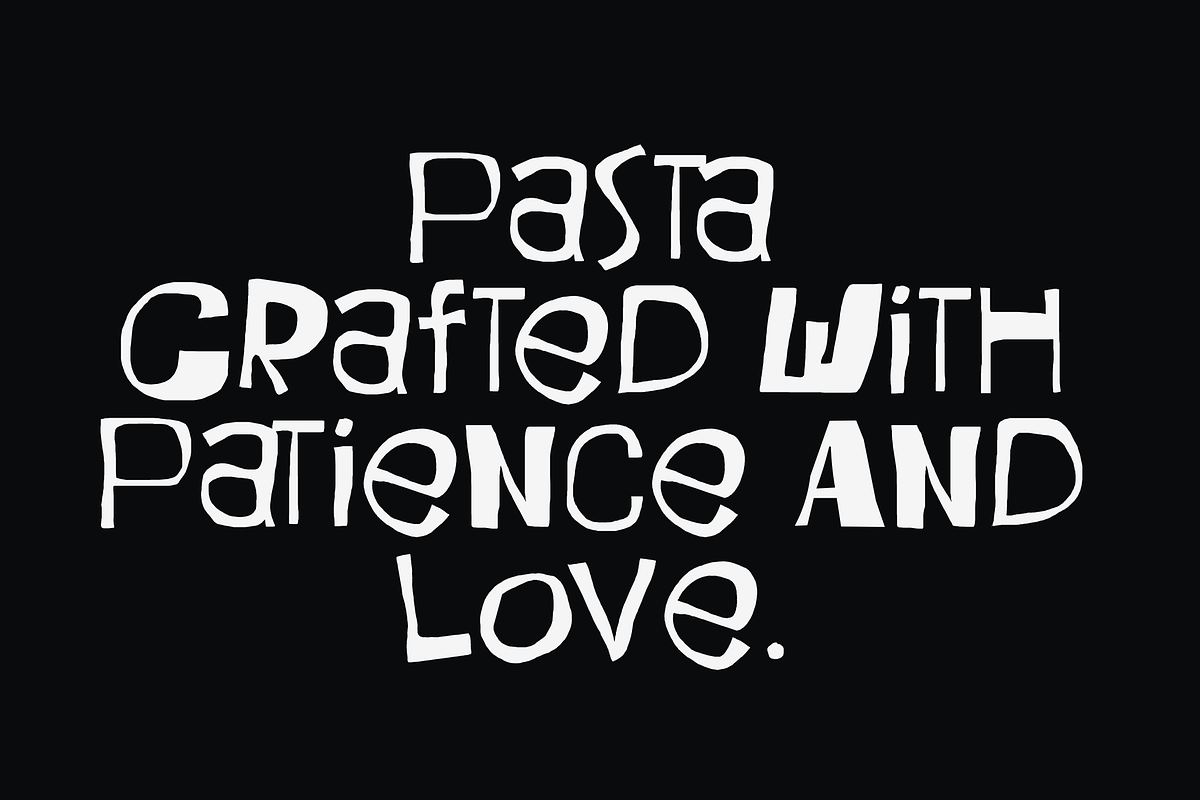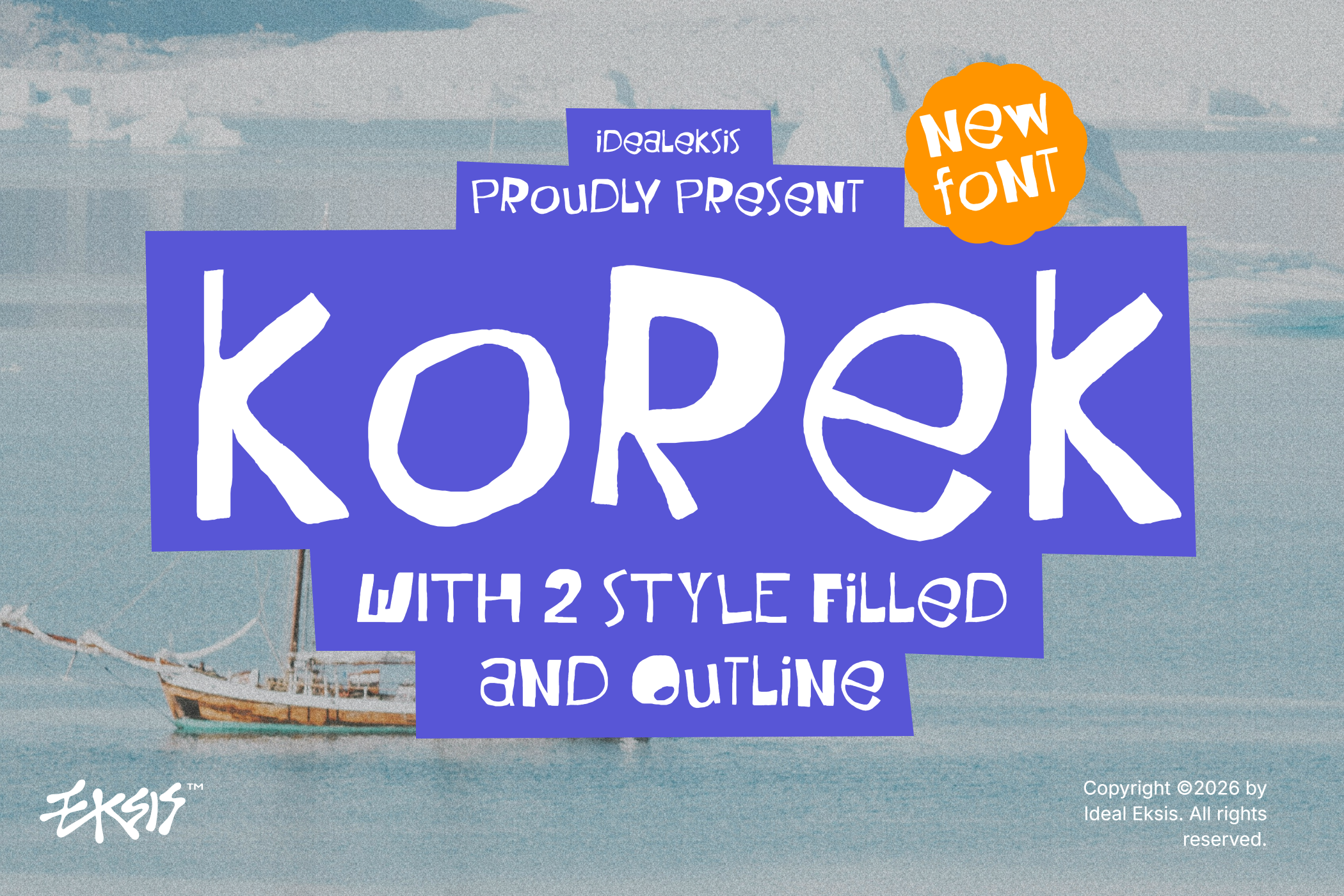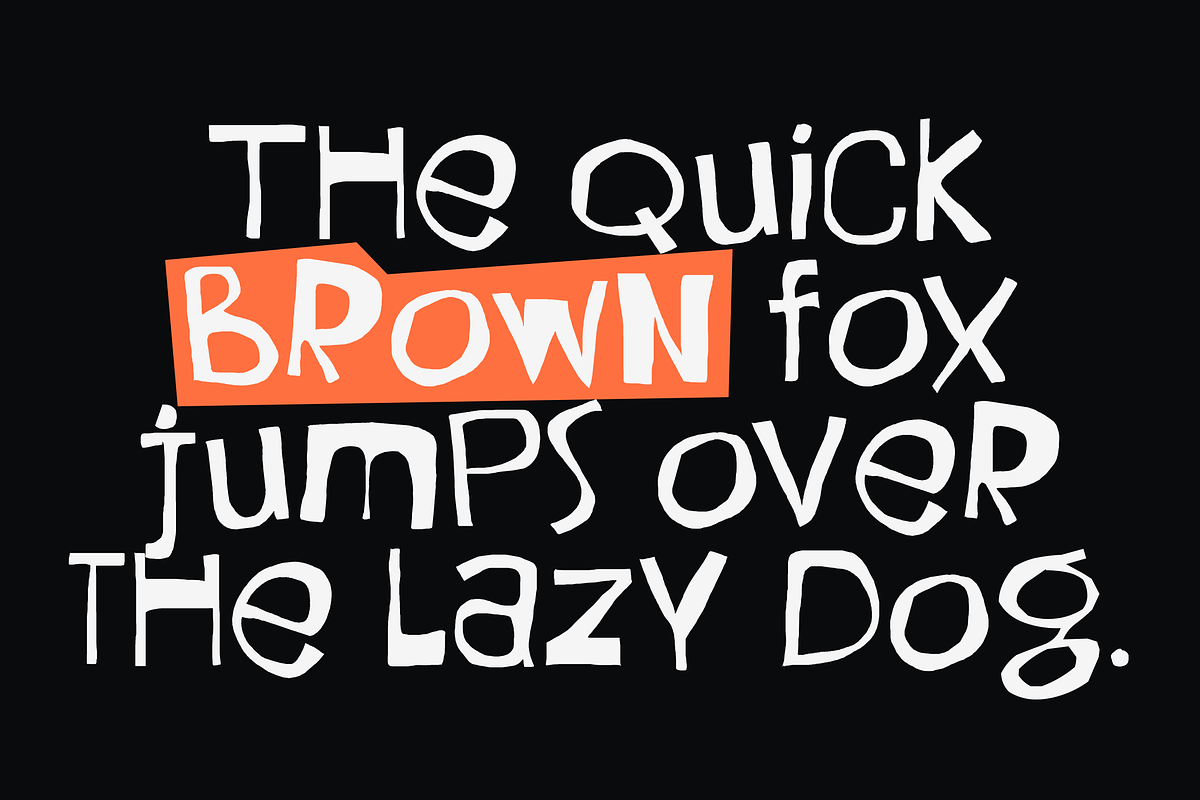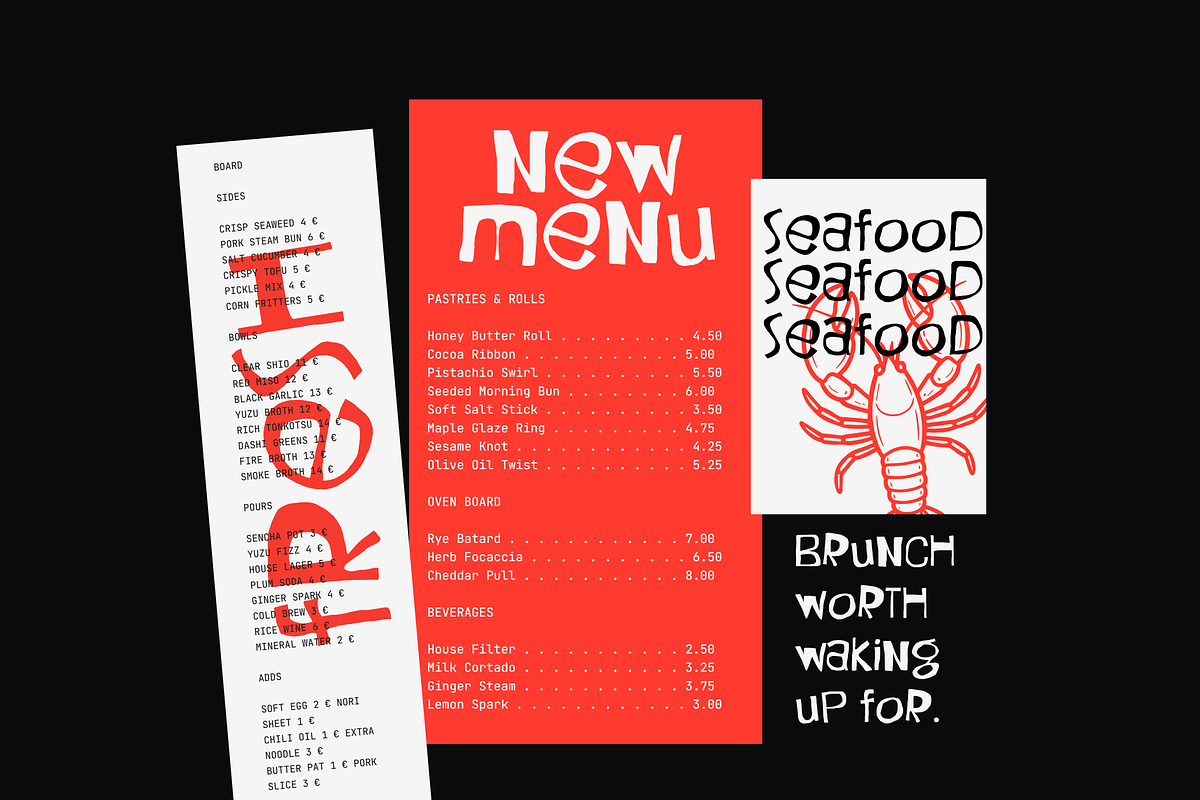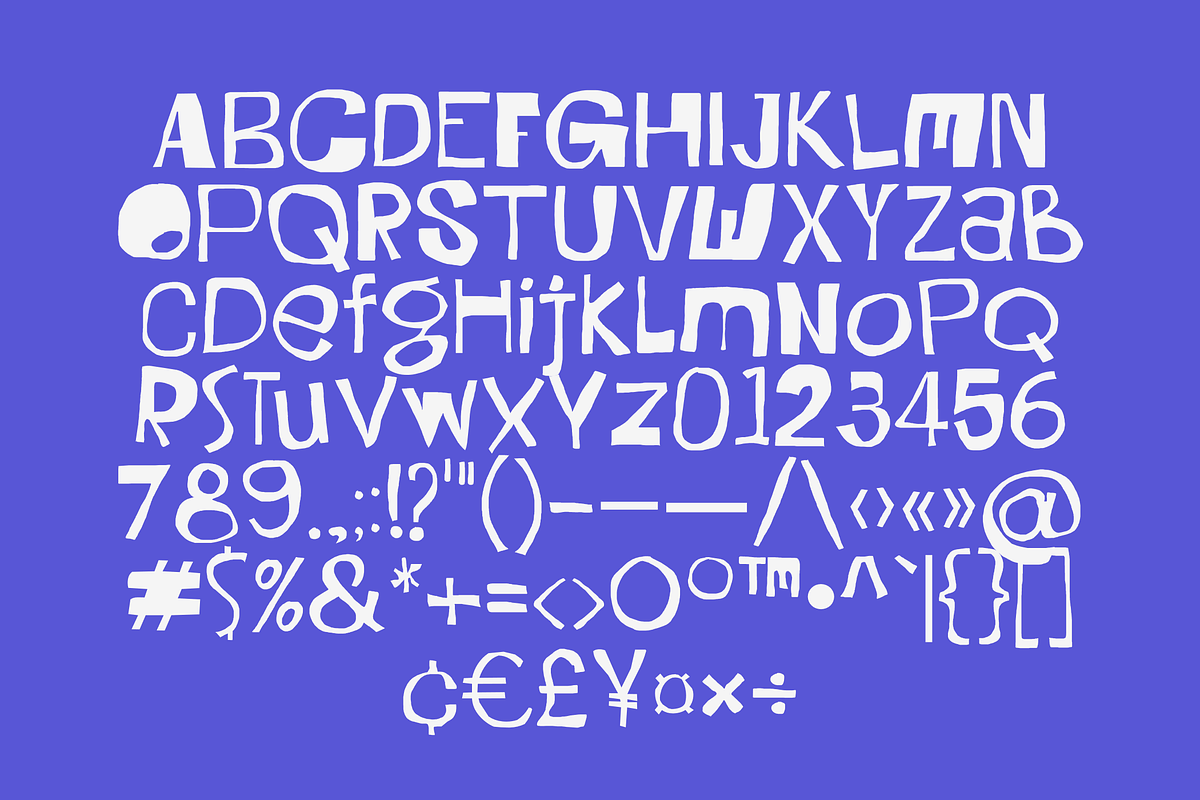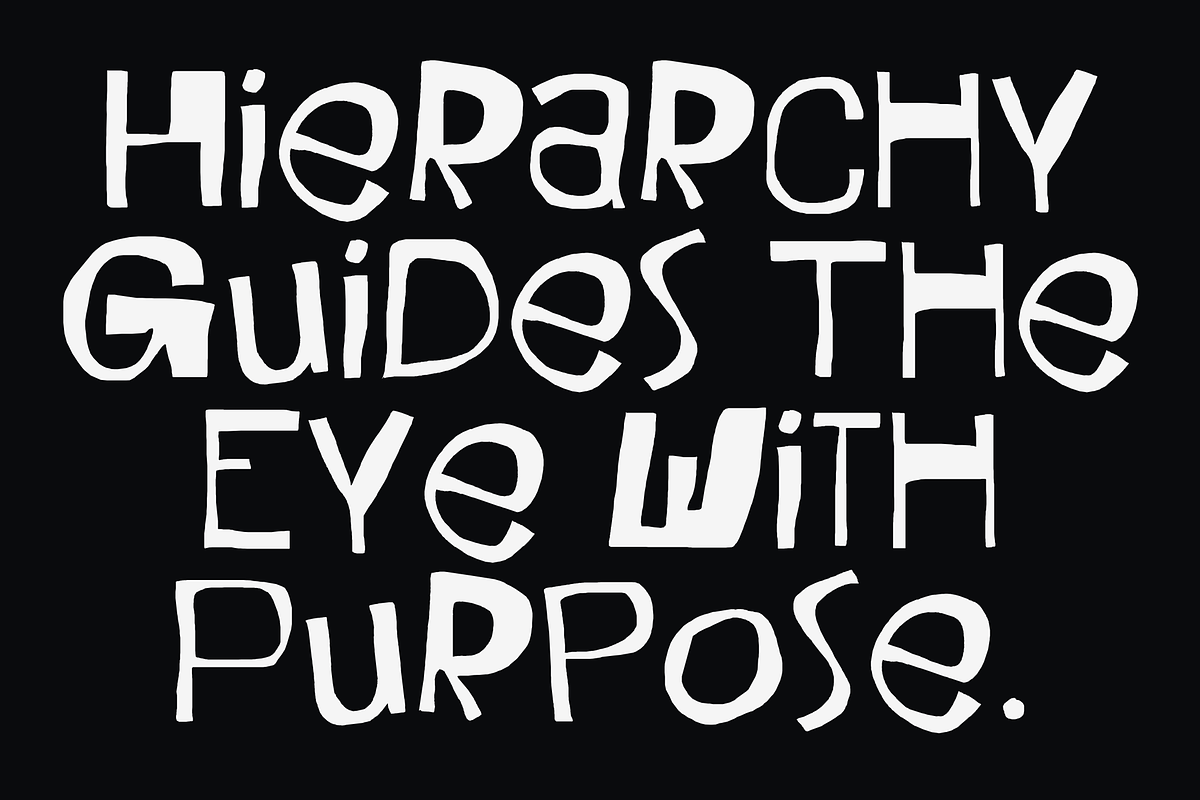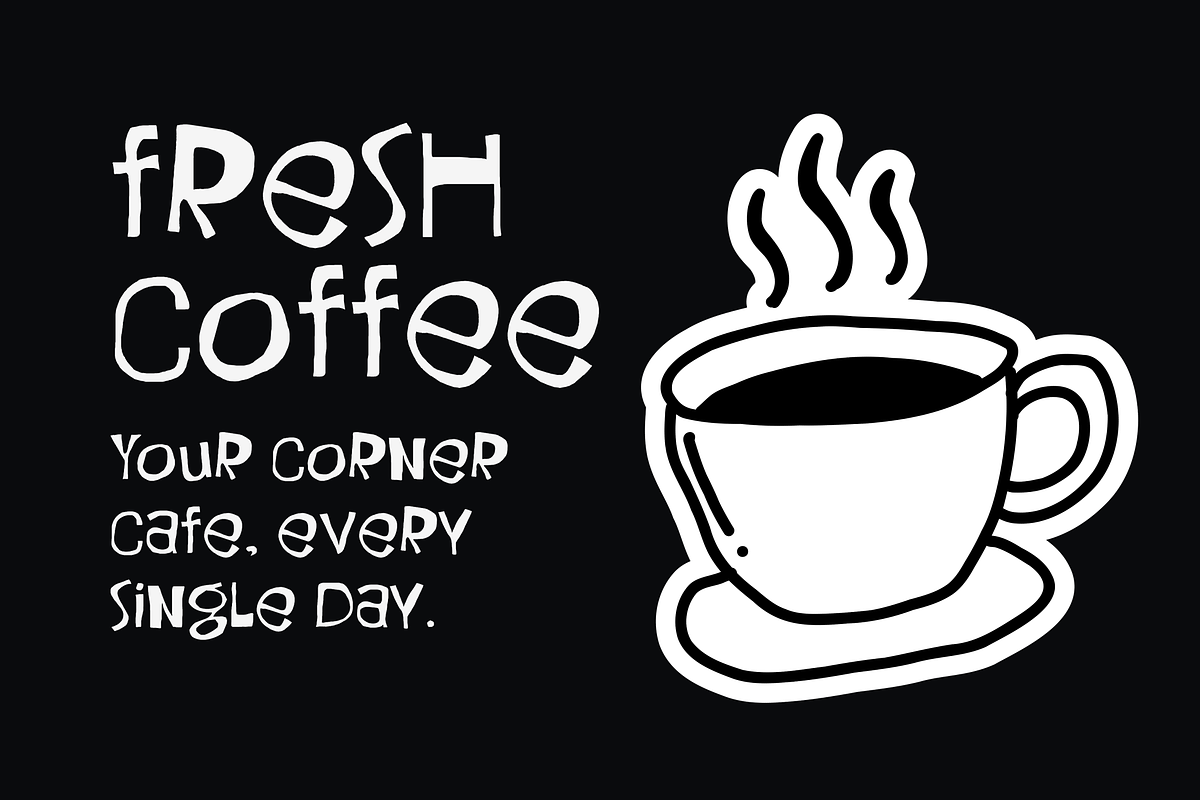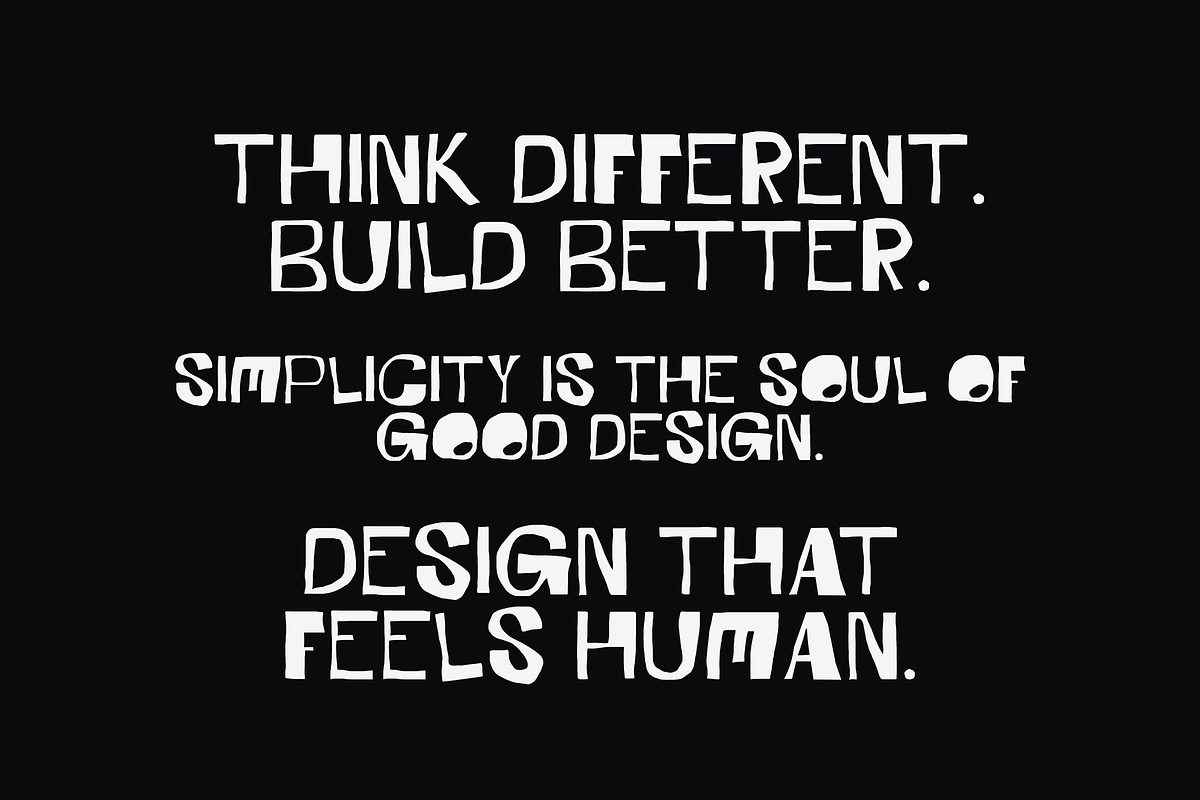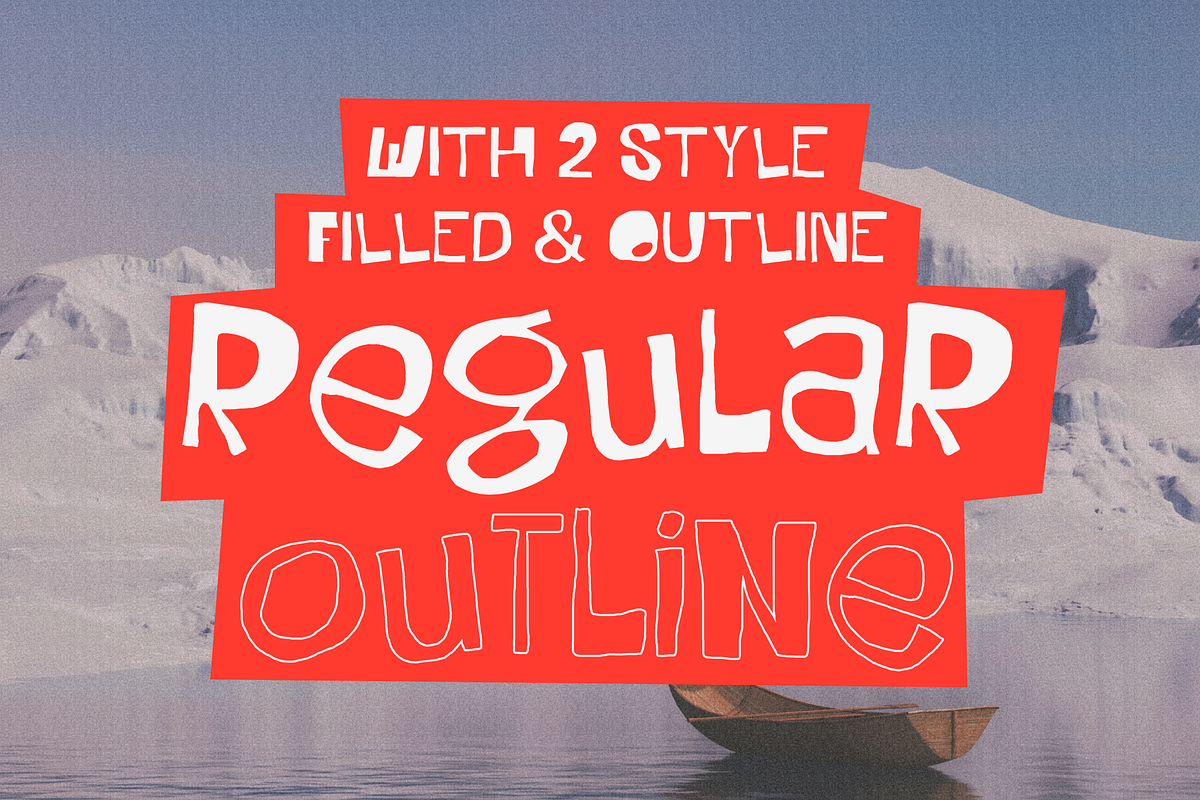
Korek Typeface
Korek is a highly expressive, decorative display typeface characterized by its hand-cut paper aesthetic and irregular, blocky letterforms. The font features a playful mix of uppercase and lowercase-style glyphs, creating a dynamic, organic rhythm. With its uneven strokes, varying weights, and quirky terminals, it evokes a casual, artistic collage vibe. This font is exceptionally well-suited for creative headlines, children's book designs, packaging, posters, and branding projects that require a fun, craft-inspired personality.